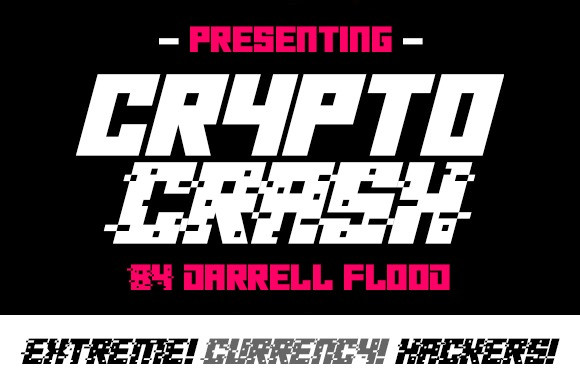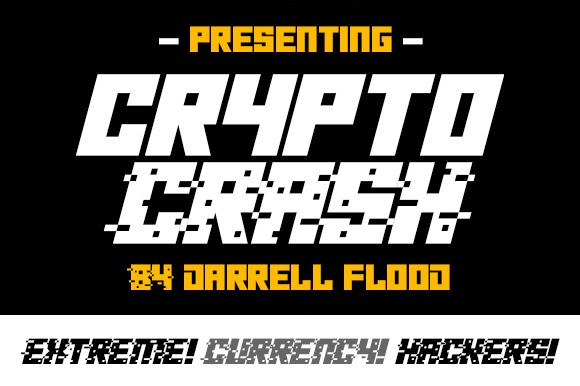
Crypto Crash Font
Crypto Crash Display Font, This font is the perfect way to add style and flair to your designs! The unique, sophisticated shapes and amazing mix of shapes in this font will automatically add a touch of class and sophistication. ideal for use in greeting cards, posters, product packaging, or just to add a little flair to your designs. Its simplicity will make it easy to read and you can use it anywhere you like. Grab your copy now and start making the most of it today!